Design of ANALOG watches and bespoke numbers
In 2021, we were approached to collaborate on a project that goes well beyond our two-dimensional space. Radek Sidun’s collaboration with product designer Michal Froňek from Olgoj Chorchoj studio enabled the new design to emerge. We designed a dial, hands and a special set of numerals for the Czech watch manufacturer Robot. Their construction allows for application in precious metals using advanced processing technologies even in the smallest details. The numerals are based on the Barell font – a new addition to our type library.
The original concept of the dial and hands is the work of Radek Sidun. The design uses the Barell font, which complements a set of numerals adapted for use on the dial. Night mode of ROBOT ANALOG watch – GRAPHIC collection.
Black case of ROBOT ANALOG watch – GRAPHIC collection.
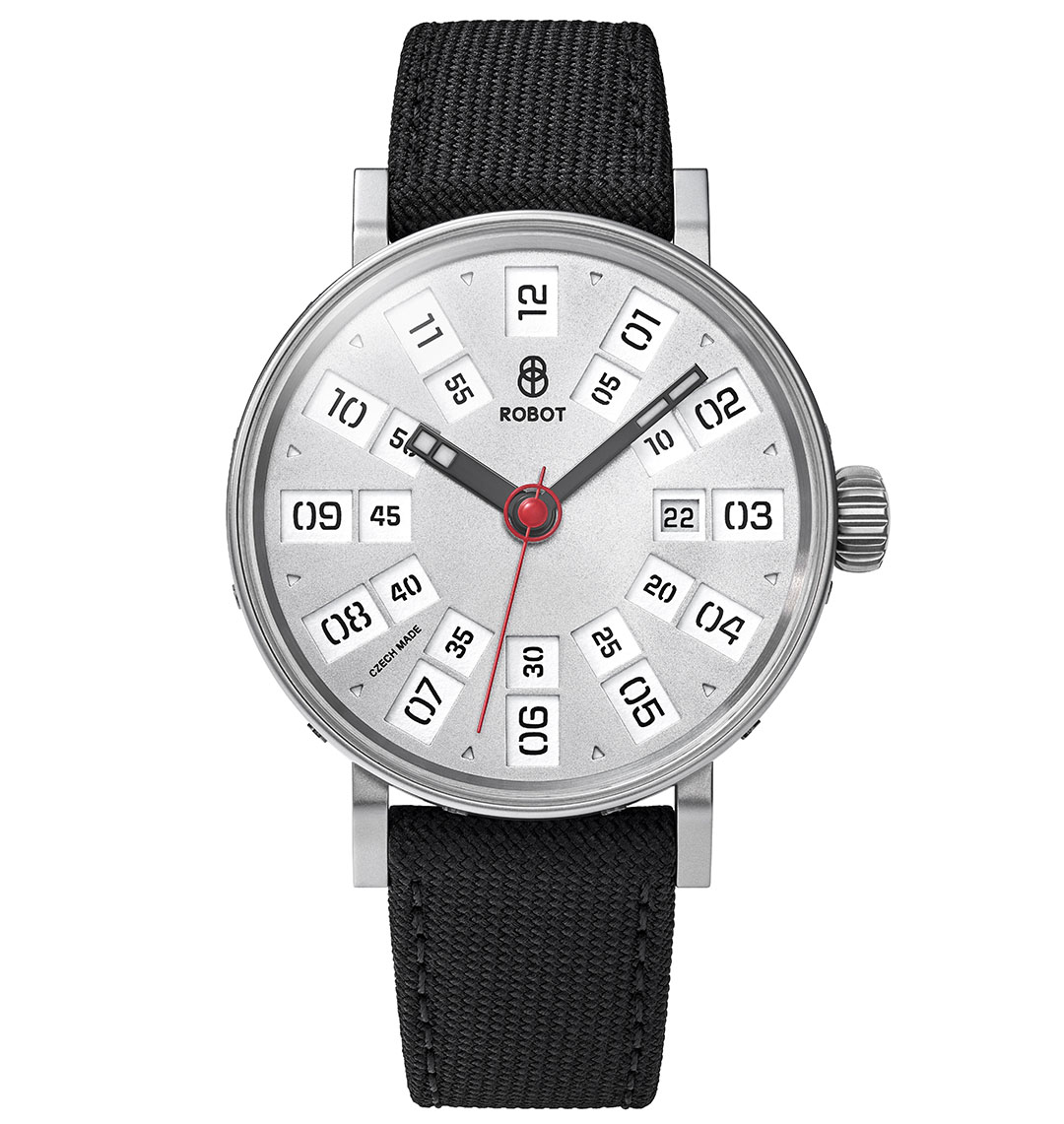
Silver case of ROBOT ANALOG watch – GRAPHIC collection.
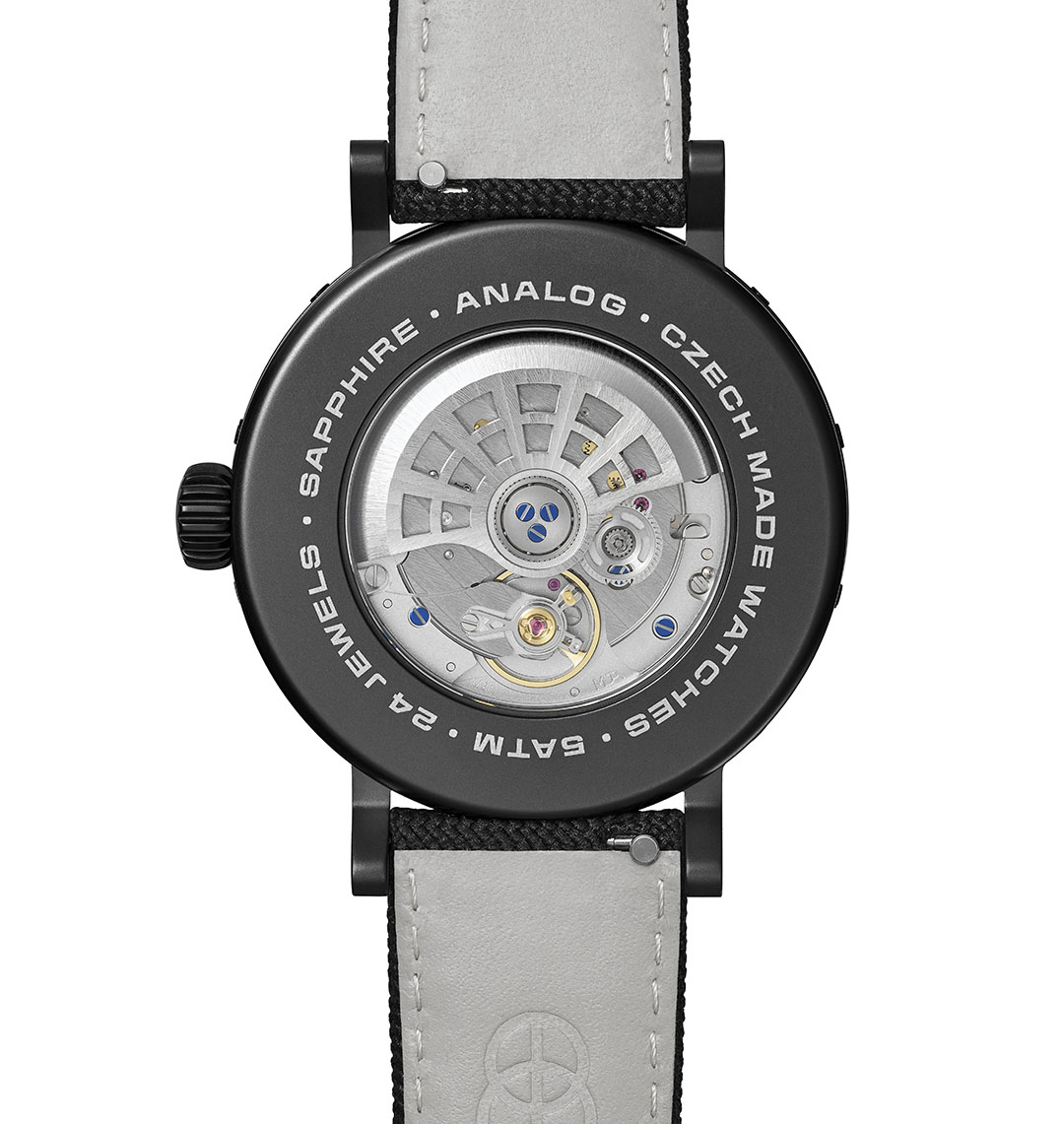
Back side of black ROBOT ANALOG watch – GRAPHIC collection. The back cover uses the Barell font perfectly width-adapted to the circular diameter thanks to VARIABLE FONT technolog.
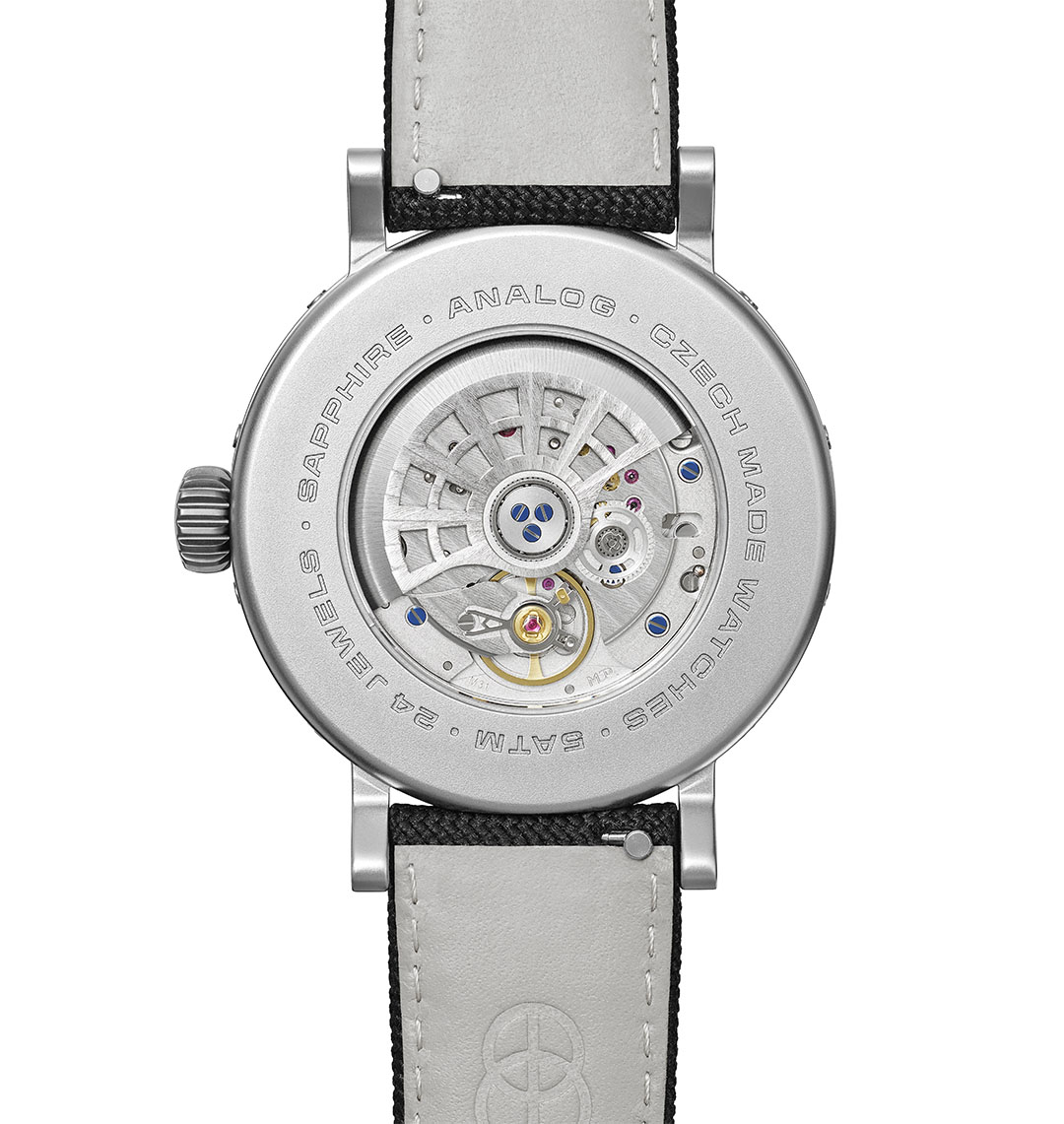
Back side of silver ROBOT ANALOG watch – GRAPHIC collection. The back cover uses the Barell font perfectly width-adapted to the circular diameter thanks to VARIABLE FONT technolog.
Their skeleton design allows application in noble metals using advanced technologies. The system includes two different sets of numbers, each adapted to a different size.
The ANALOG watch model is a tribute to the iconic graphic designer Jiří Rathouský. His typography is strongly associated with the wayfinding systems of buildings, housing estates and Prague public transport, i.e. exactly where time plays an important role.
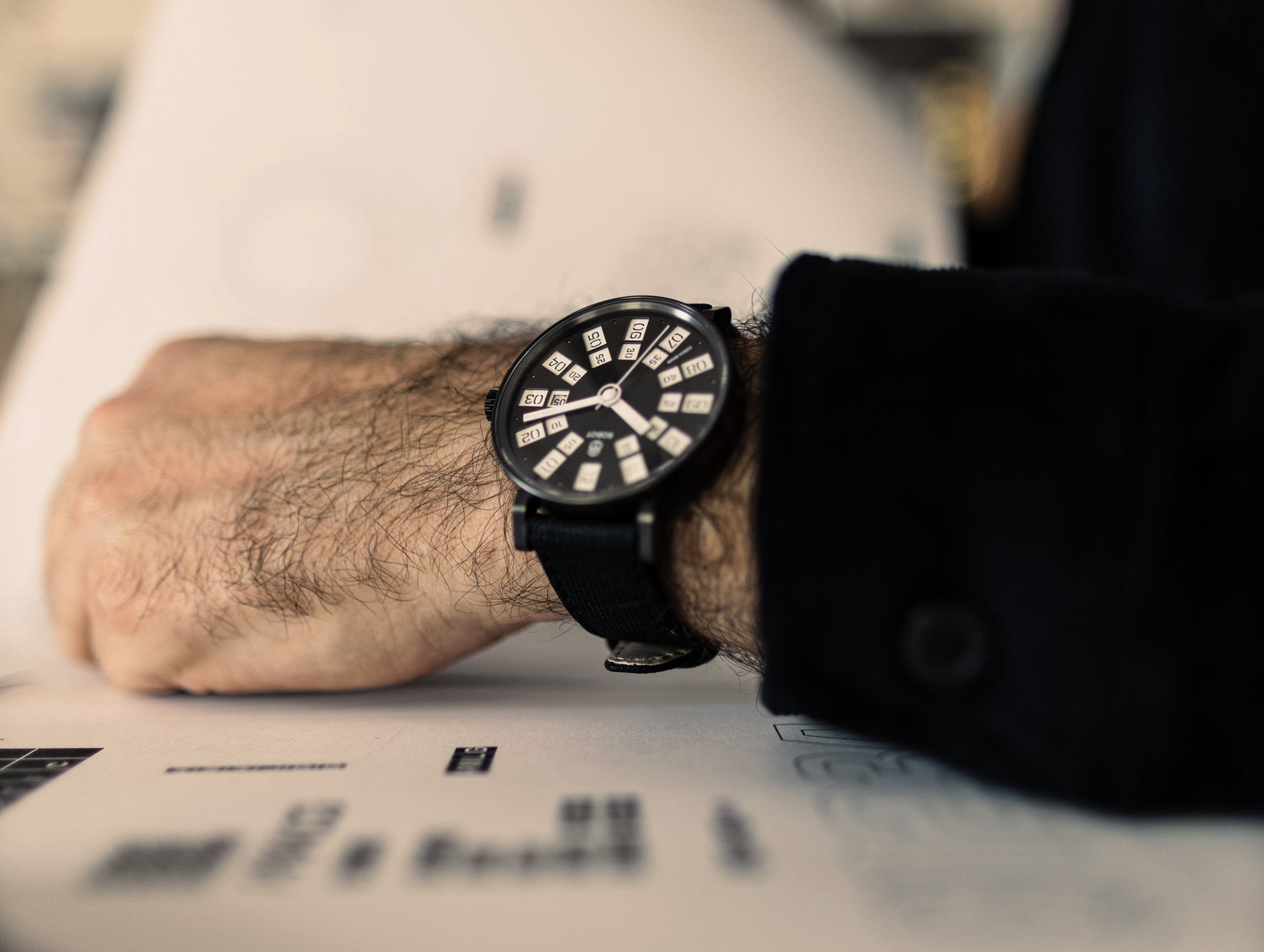
Radek Sidun, type designer at Prague-based Briefcase Type Foundry, designed the dial, hands and a special set of numerals.
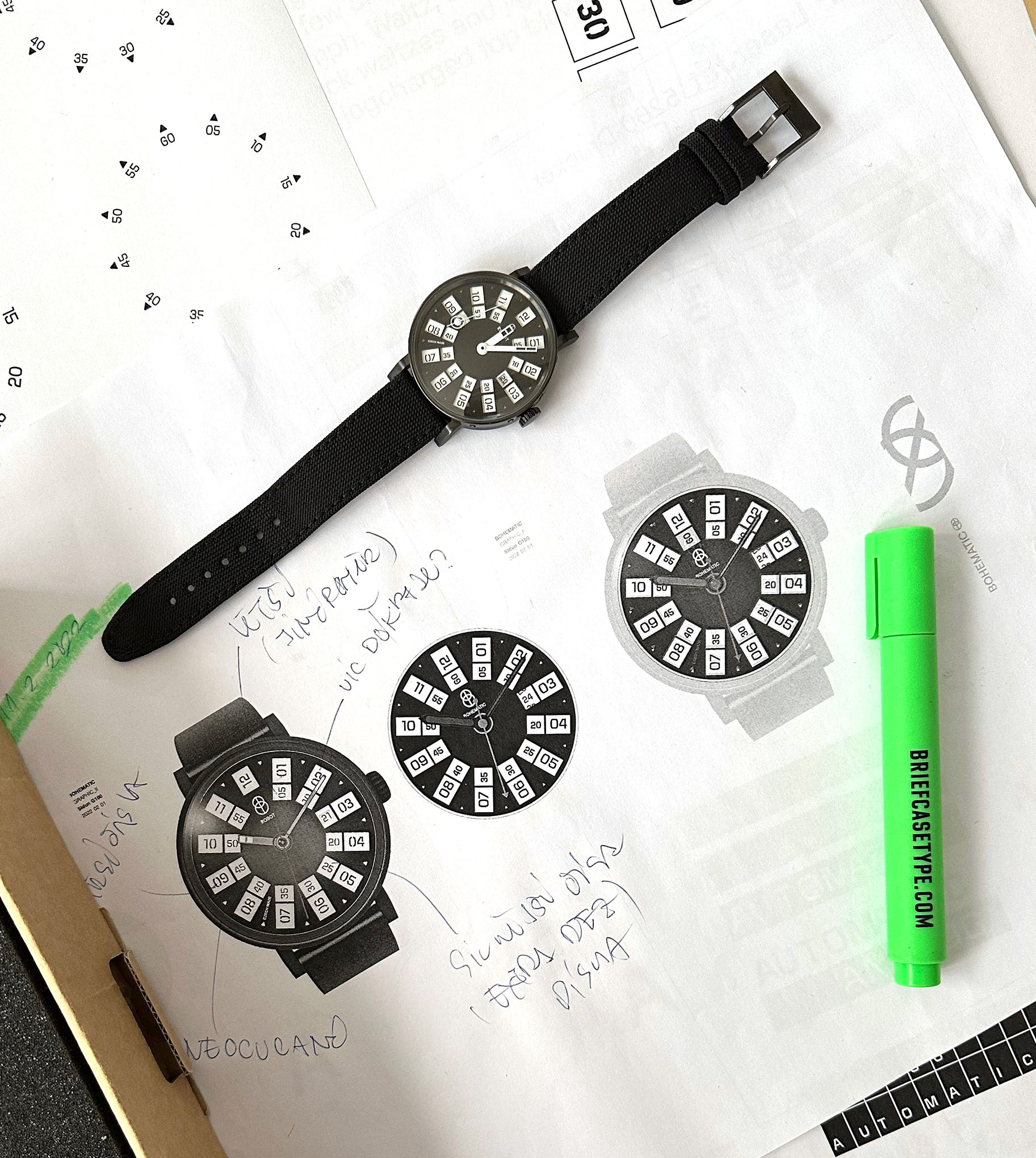
A sample of the work in progress, one of the late stage produced test prototypes.
ROBOT is a brand of quality mechanical watches, an idea which originated in the Czech Republic. Just as the world-famous term “robot” comes from this country in the heart of Europe. Out of passion for technology, handwork and craftsmanship, production comes to life every day in the manufactory in Nové Město nad Metují, where attractive mechanical watches with a high percentage of handwork and quality Swiss movements are created in small series. Special in design, precise in fine watchmaking mechanics.
COLLECTION GRAPHIC ANALOG
Modifications Black and Silver
Design of case Studio Olgoj Chorchoj
Graphic Design Radek Sidun